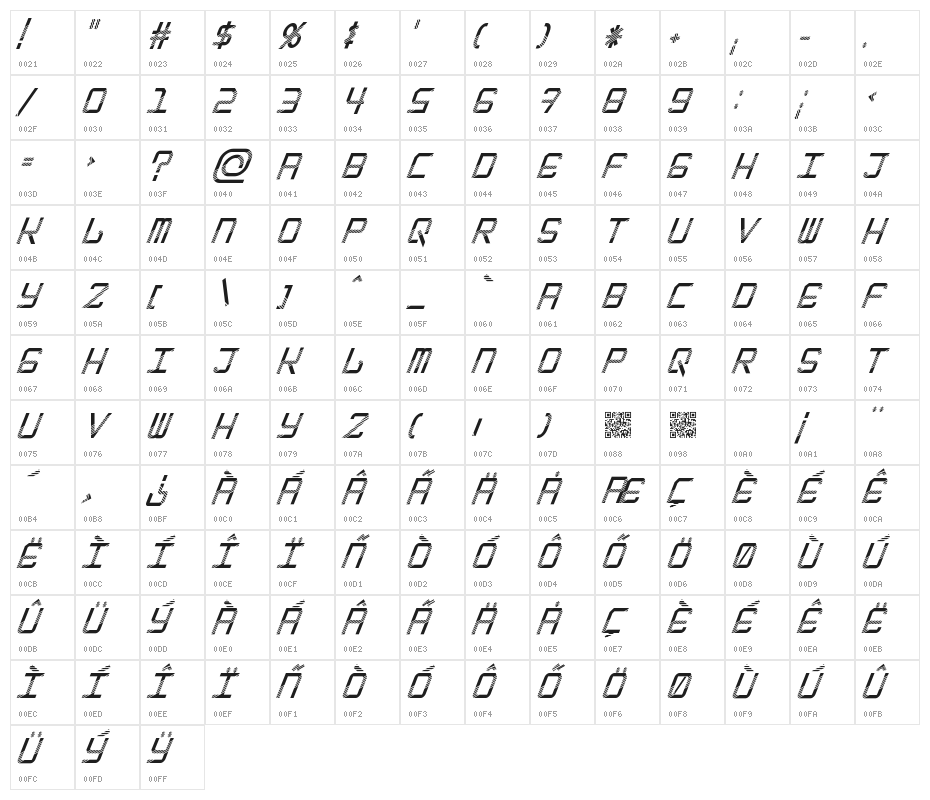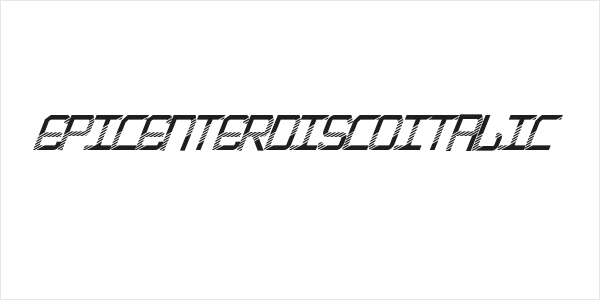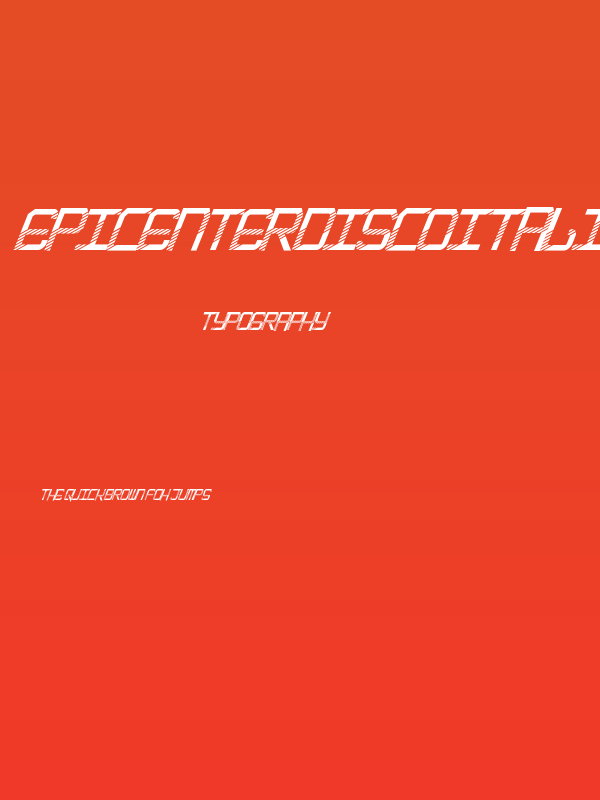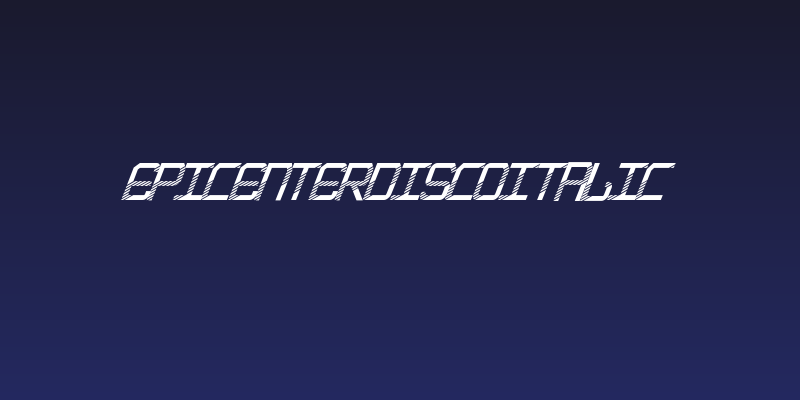
EpicenterDiscoItalic Font
EpicenterDiscoItalic Description
This font features a dynamic and energetic style with a distinct italic slant, giving it a sense of motion and speed. The characters are constructed with a bold, geometric design, incorporating diagonal lines that create a striped pattern within each letter. This gives the font a unique, futuristic appearance. The uppercase and lowercase letters maintain a consistent style, with sharp angles and clean lines. The numerals and special characters are designed to match the overall aesthetic, ensuring a cohesive look across all elements. The font's boldness and distinctive style make it ideal for projects that require a modern and eye-catching typeface.
| Proposed Projects | Ideal for music album covers, event posters, modern branding, and digital media projects. |